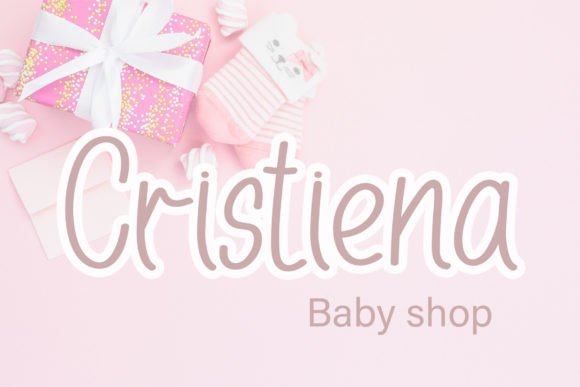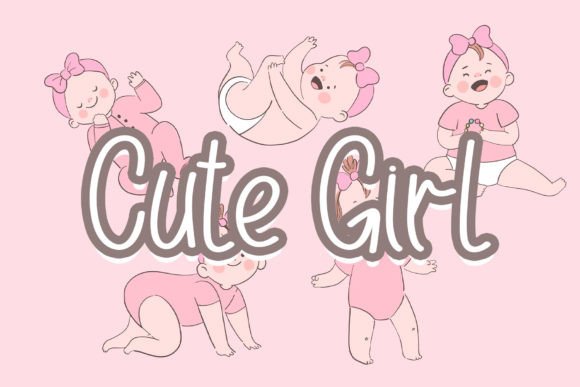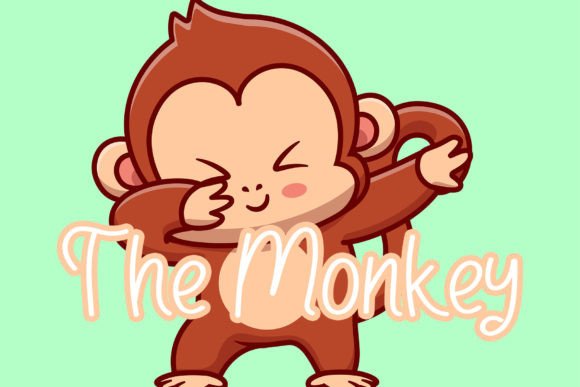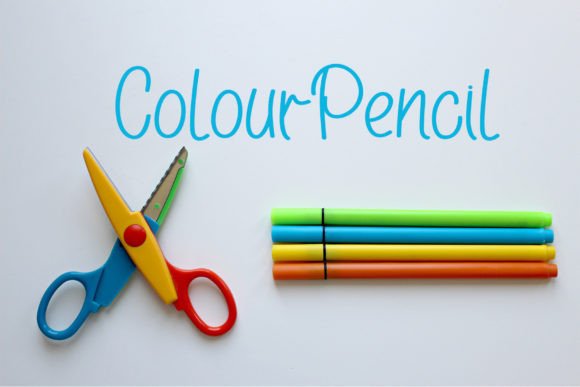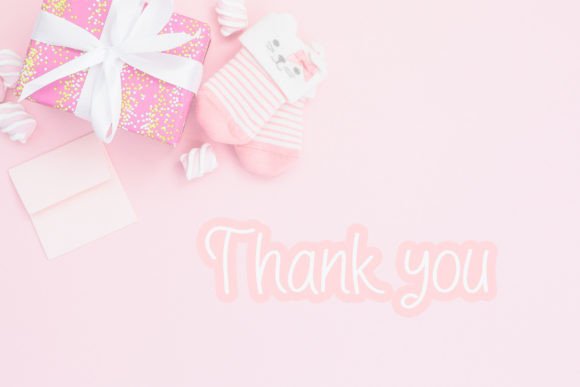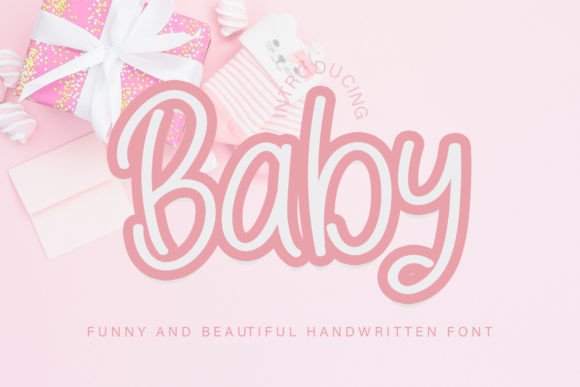
Baby Font: The Cool and Modern Handwritten Font for Designers and Crafters
Baby Font is a stylish and contemporary handwritten font that has been gaining popularity among designers, crafters, and DIY enthusiasts. Its versatility and charm make it an excellent choice for various projects, from crafts and digital design to presentations and greeting cards. In this article, we’ll explore the features and benefits of Baby Font, and why it’s becoming a favorite among creative professionals.
What is Baby Font?
Baby Font is a modern handwritten font designed to add a personal touch to your projects. Its unique and elegant style makes it perfect for a wide range of applications, from formal to informal. The font’s creator aimed to design a font that would be both fun and sophisticated, making it suitable for various design needs.
Key Features of Baby Font
- Handwritten style: Baby Font boasts a beautiful, handwritten style that adds a touch of warmth and personality to your designs.
- Modern and cool: The font’s modern and cool design makes it perfect for designers and crafters looking for a fresh and contemporary look.
- Versatile: Baby Font is highly versatile and can be used for various projects, including crafts, digital design, presentations, and greeting cards.
- Easy to read: The font is clear and easy to read, making it suitable for both digital and print applications.
Why Designers and Crafters Love Baby Font
Designers and crafters love Baby Font for its unique style and versatility. Here are some reasons why:
- Unique style: Baby Font’s distinctive style sets it apart from other fonts, making it perfect for designers and crafters looking to add a personal touch to their projects.
- Crafting and DIY projects: The font’s handwritten style and modern design make it ideal for crafting and DIY projects, such as making greeting cards, scrapbooking, and other paper crafts.
- Digital design: Baby Font is also suitable for digital design, including social media graphics, blog posts, and presentations.
Use Cases for Baby Font
Baby Font is a versatile font that can be used for various projects, including:
- Crafts: Use Baby Font to add a personal touch to your crafting projects, such as making greeting cards, scrapbooking, and other paper crafts.
- Digital design: Use the font to create social media graphics, blog posts, and presentations that stand out.
- Presentations: Add a touch of elegance to your presentations with Baby Font.
- Greeting cards: Use the font to create beautiful and personalized greeting cards for special occasions.
Tips for Using Baby Font
Here are some tips for using Baby Font effectively:
- Pair with other fonts: Experiment with pairing Baby Font with other fonts to create a unique and visually appealing design.
- Use for headings and titles: Use Baby Font for headings and titles to add a touch of elegance and sophistication.
- Experiment with colors: Try out different colors to find the perfect combination that complements your design.
Baby Font is a cool and modern handwritten font that is perfect for designers and crafters looking for a versatile and stylish font. Its unique style, ease of use, and versatility make it an excellent choice for various projects, from crafts and digital design to presentations and greeting cards. With its growing popularity, Baby Font is sure to become a favorite go-to font for many creative professionals.